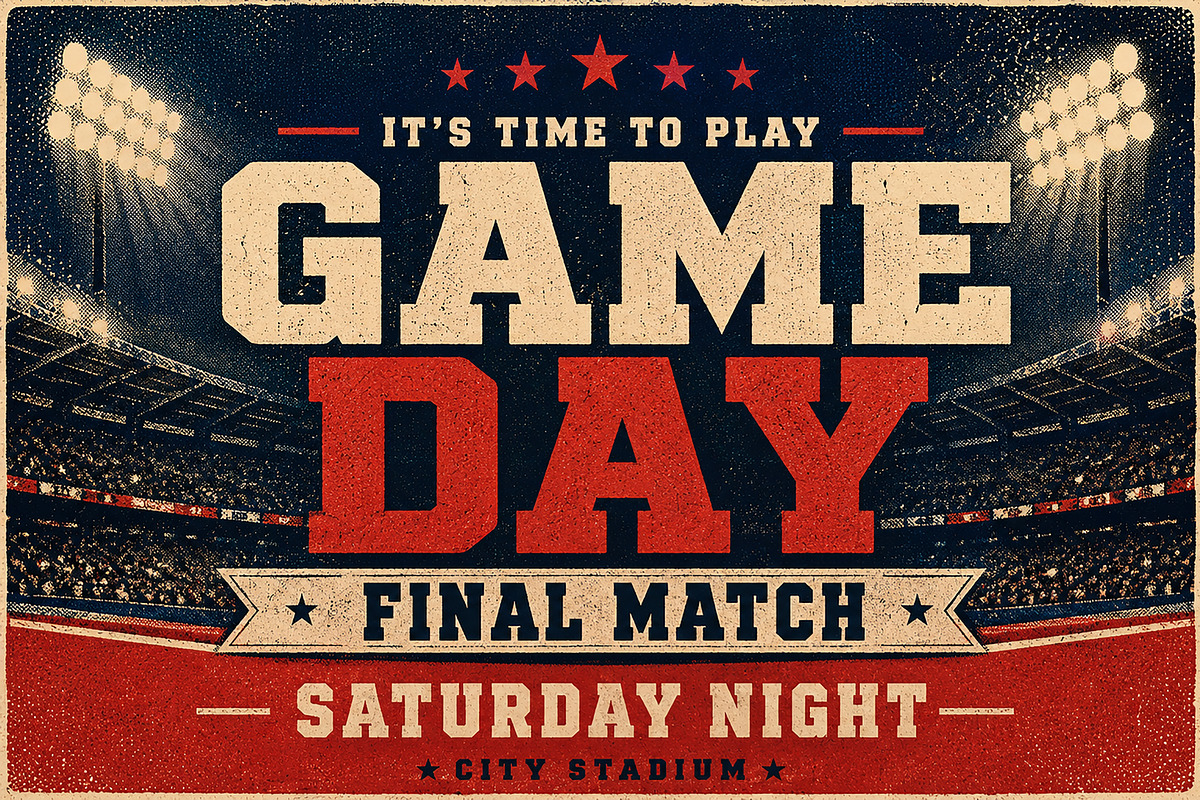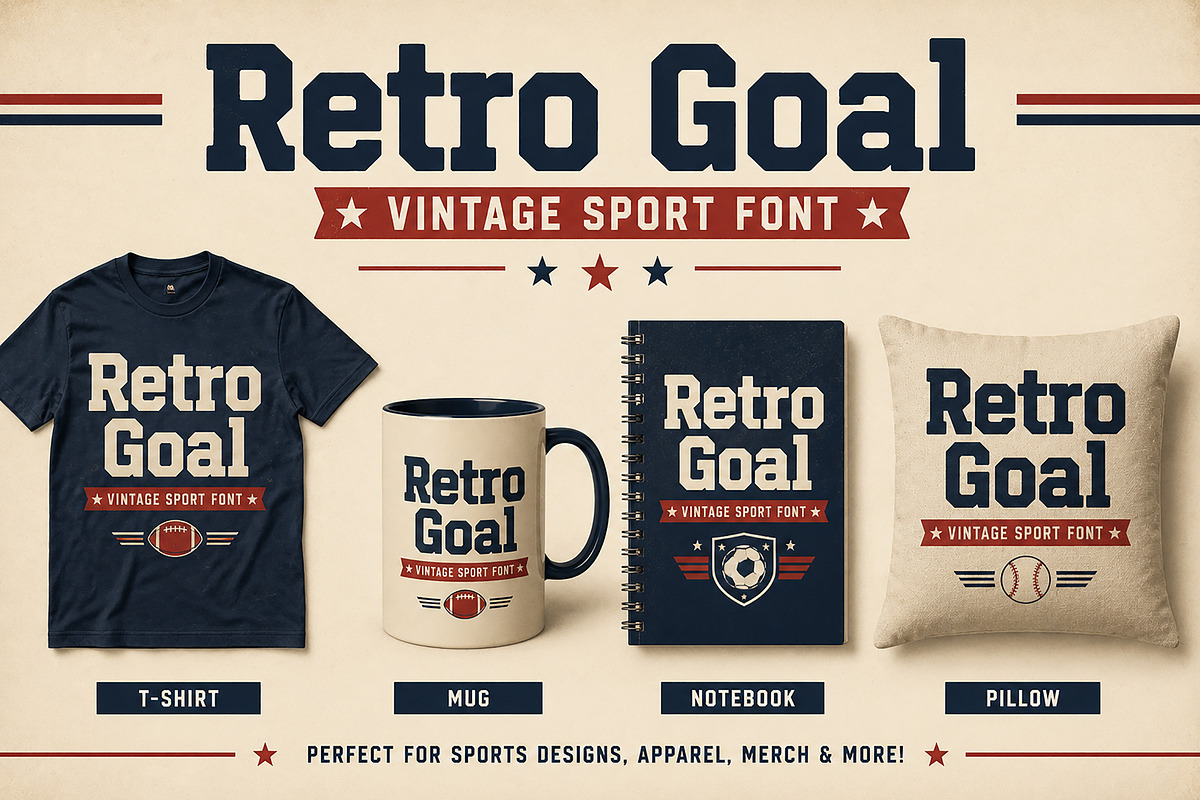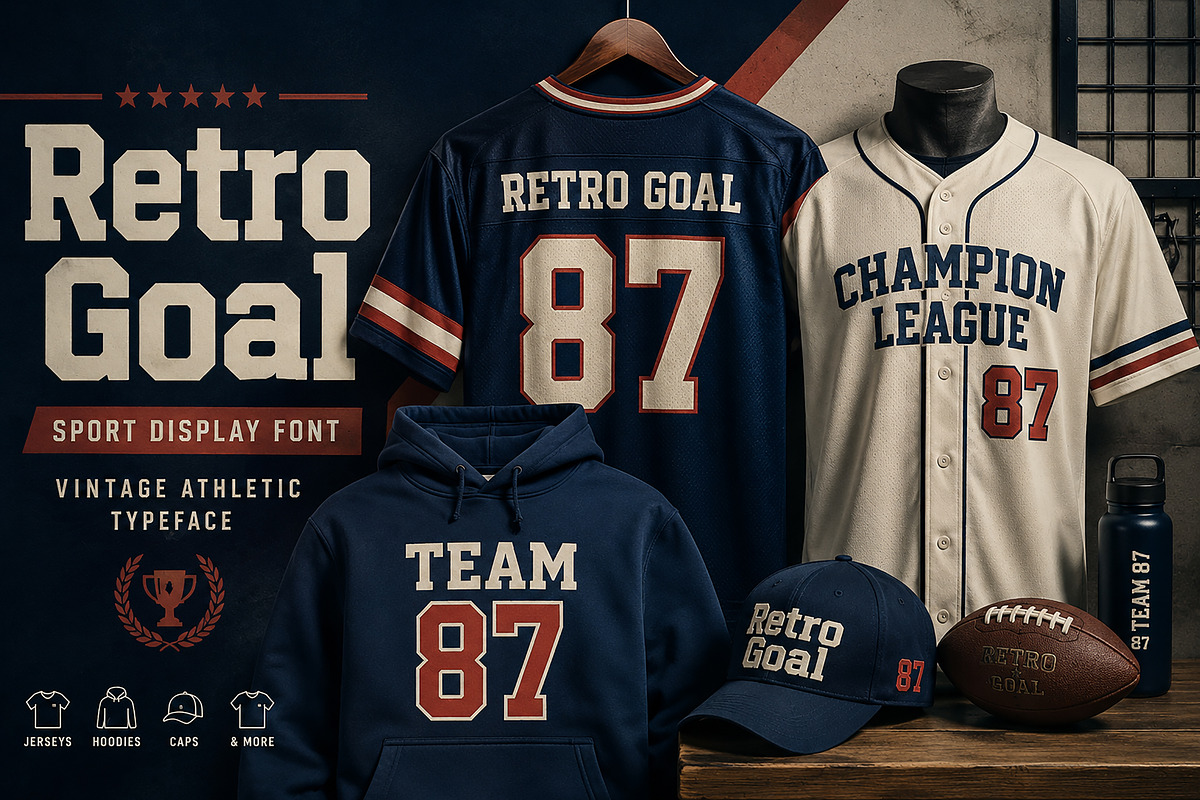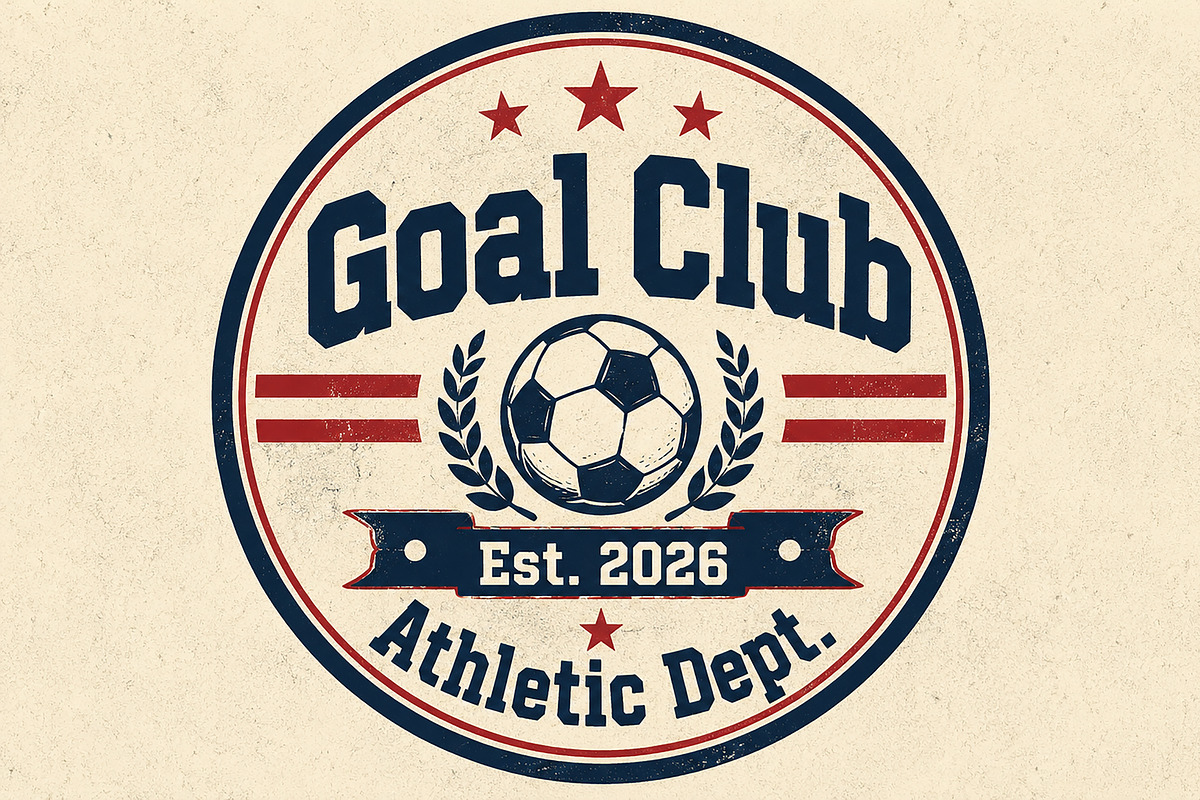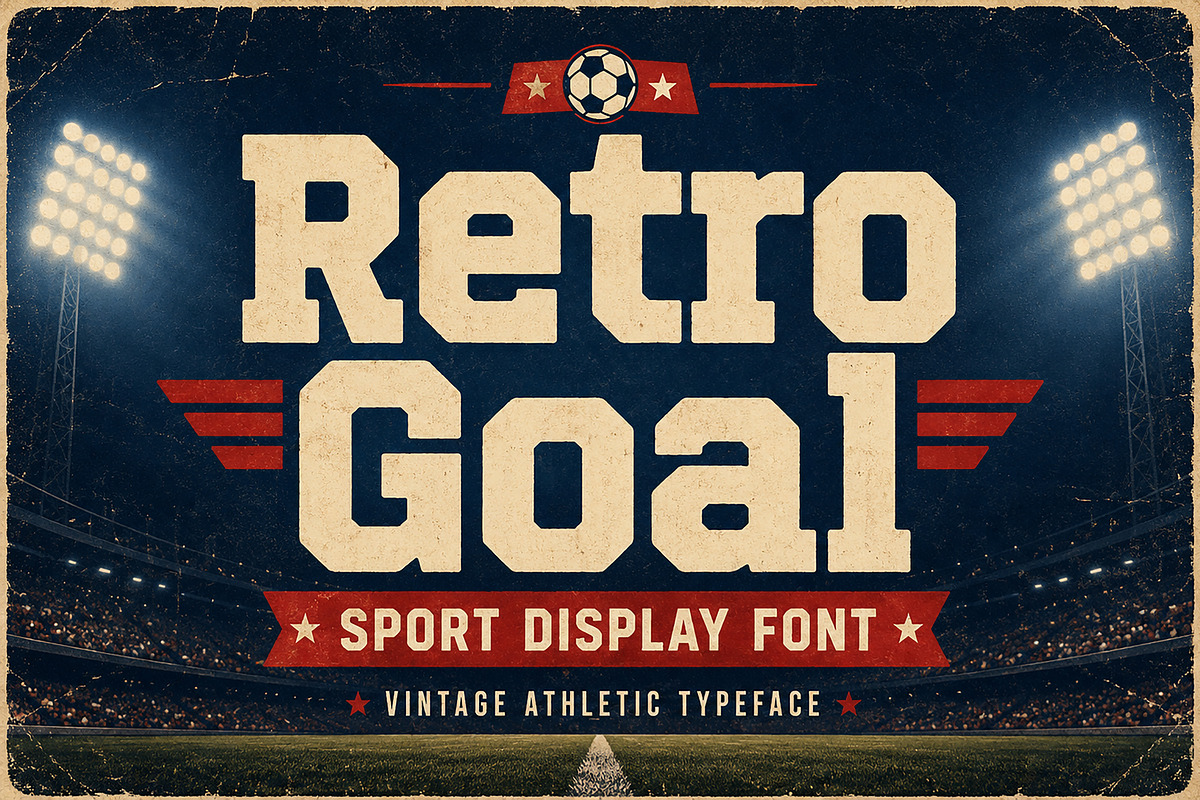
Retro Goal
Retro Goal – Vintage Sport Display Font
Retro Goal is a bold vintage sport display font inspired by classic varsity lettering, retro football posters, college athletics, and old-school championship branding. Featuring strong block characters with an authentic athletic style, this typeface is perfect for creating eye-catching sports-themed designs with a nostalgic retro feel.
Whether you’re designing team logos, jersey prints, game posters, apparel branding, merchandise, packaging, or social media graphics, Retro Goal delivers a powerful sporty character that instantly stands out.
Perfect for vintage sports branding, varsity logos, football and baseball designs, school merchandise, retro posters, t-shirts, badges, and print-on-demand products.
Vintage Sports Branding
Varsity & College Logos
Football & Baseball Posters
Team Jerseys & Apparel
T-shirt & Merchandise Design
Sports Event Flyers
Retro Badge & Emblem Design
Packaging & Labels
Print-on-Demand Products
Uppercase Characters
Bold Athletic Letterforms
Vintage Varsity Style
Perfect for Sports Designs
Strong Retro Character
High Readability